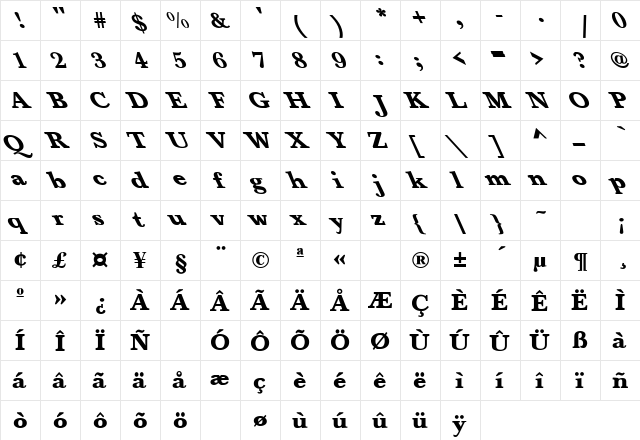
Baskerville-Bold Extreme Lefty Regular
Design Context for Baskerville-Bold Extreme Lefty Typeface
Baskerville-Bold Extreme Lefty is a composed and adaptable typeface that performs quietly and consistently across a wide range of design contexts. The heavy weight commands attention and anchors typographic hierarchies.